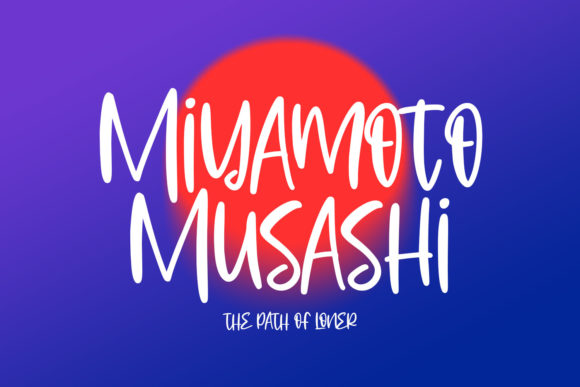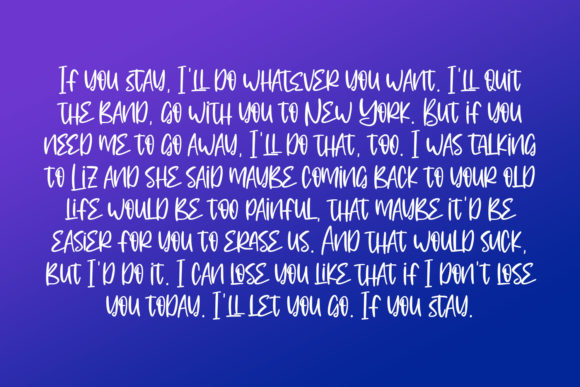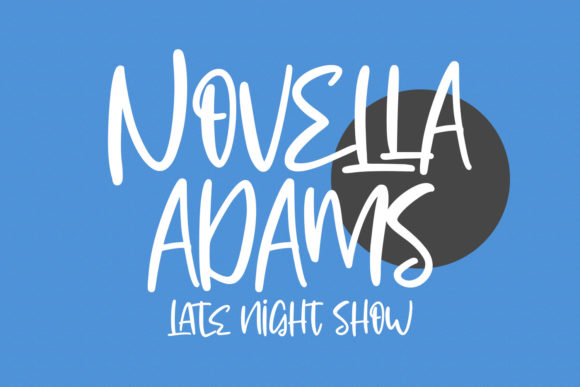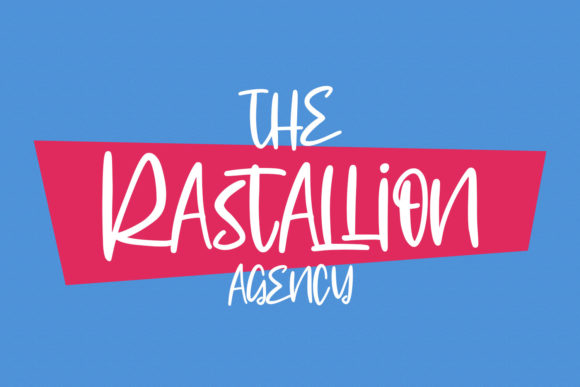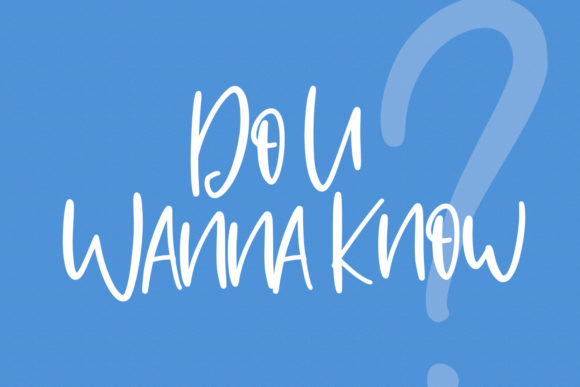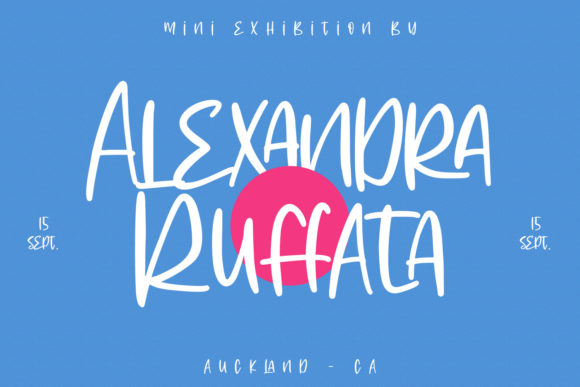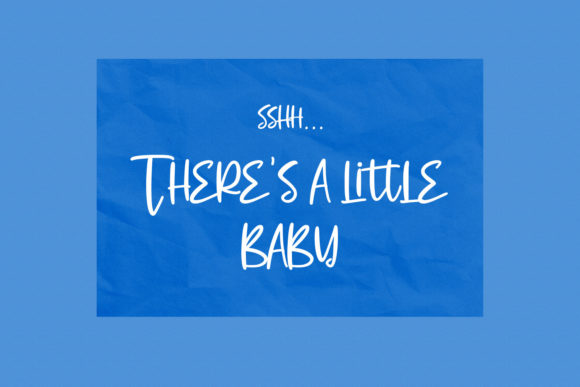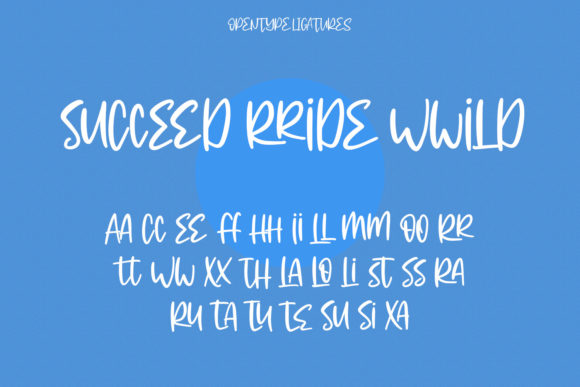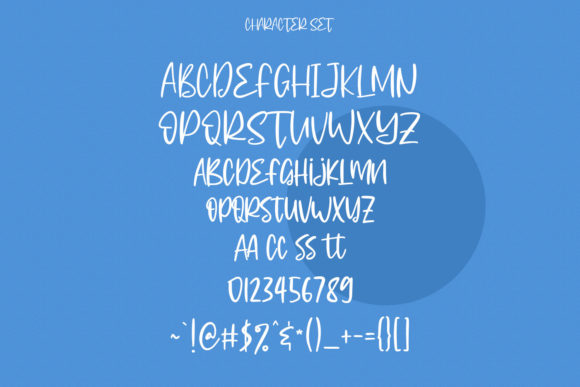
Arcticfunk Font
About Arcticfunk Font
Arcticfunk is a simple, quirky and adaptable handwritten font. Its informal style and casual vibe will make this font a go-to choice for each of the creations that require a relaxed touch.